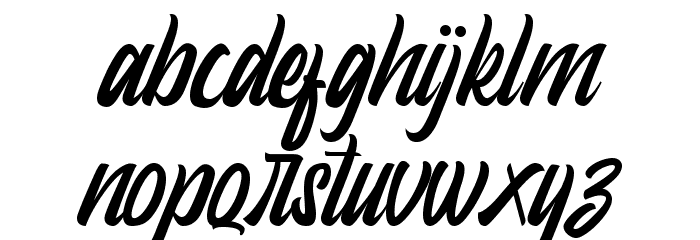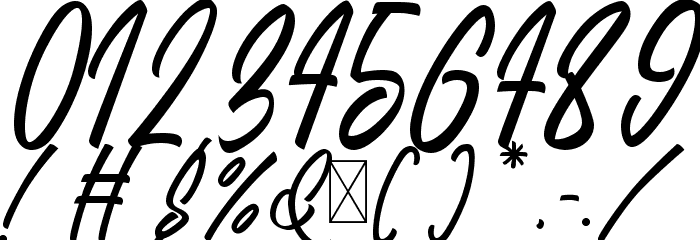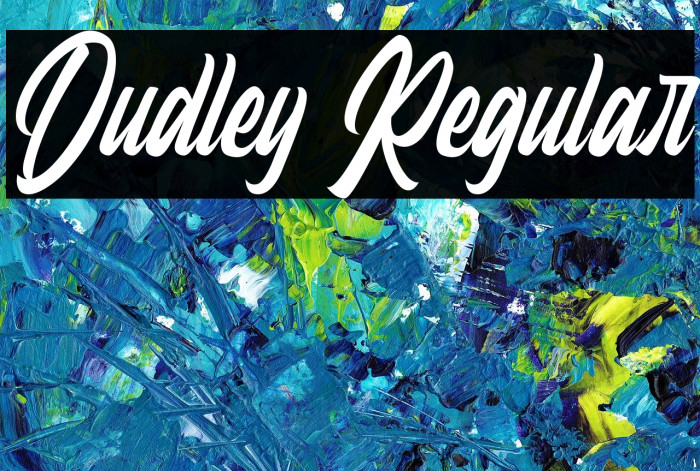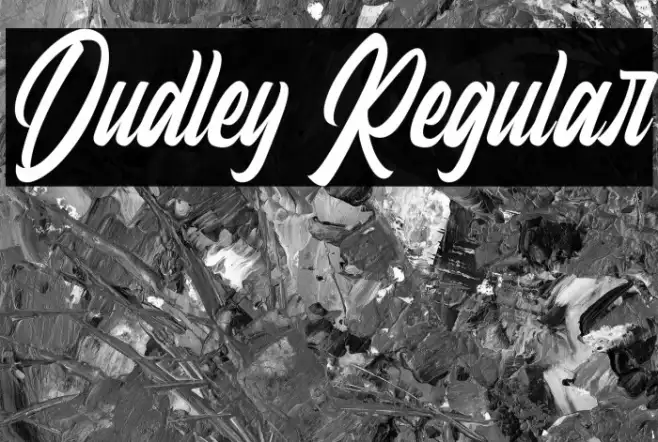
Dudley Regular Font
This font exudes a dynamic and elegant script style, characterized by its fluid, cursive letterforms that convey a sense of movement and sophistication. The uppercase letters are bold and sweeping, with a consistent slant that enhances the font's graceful appearance. The lowercase letters maintain a harmonious flow, with smooth connections between characters, making it ideal for creating a cohesive and stylish look. The numerals are equally expressive, featuring a similar slant and boldness that ensures readability while maintaining the font's overall aesthetic. Special characters are thoughtfully designed to complement the letterforms, adding versatility to the font's application. This font is perfect for projects that require a touch of elegance and flair.
A dynamic and elegant script font with fluid, cursive letterforms.
- Font: Dudley Regular
- Proposed Projects: Ideal for wedding invitations, branding, logos, and elegant packaging designs.
- Category: Script
- Overall Style: Elegant
- Use Case: Logos, Invitations, Branding